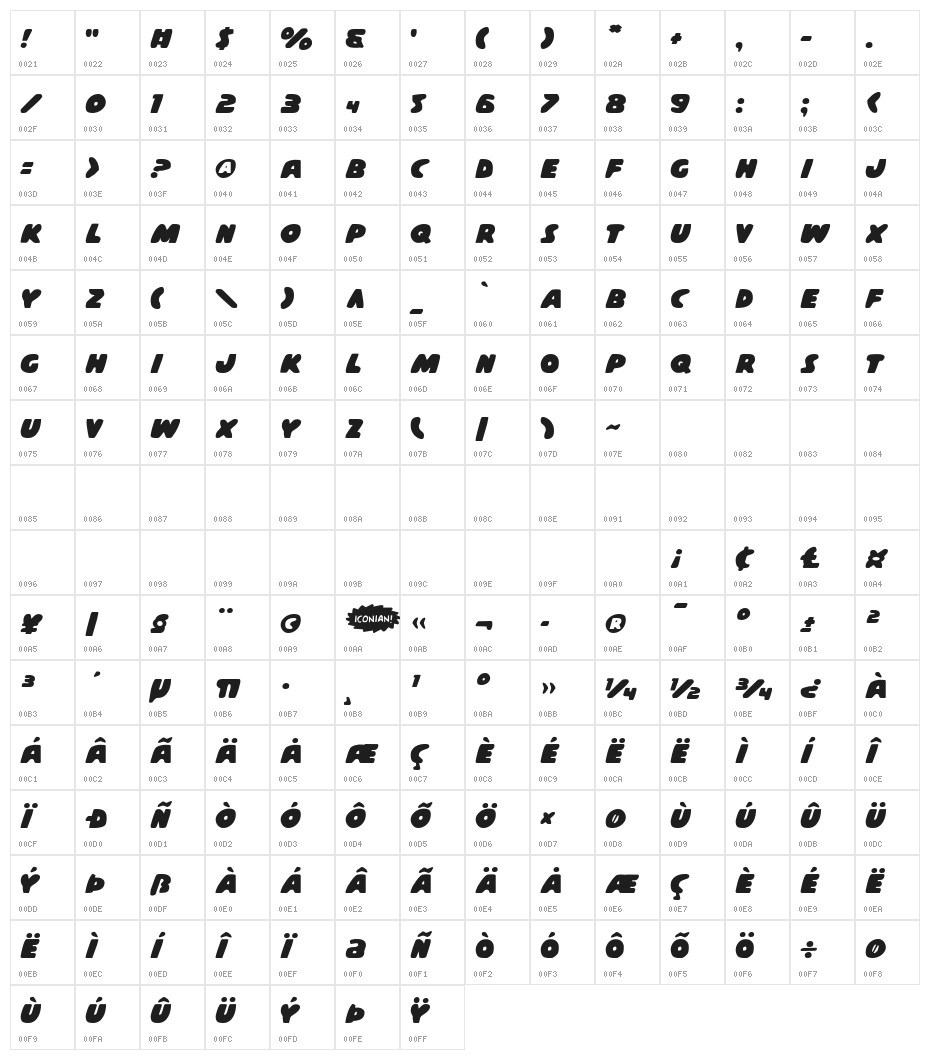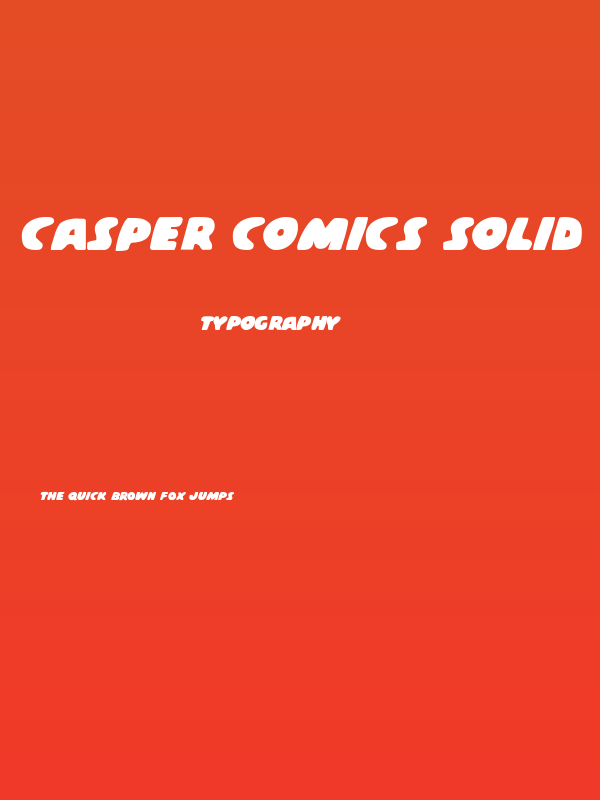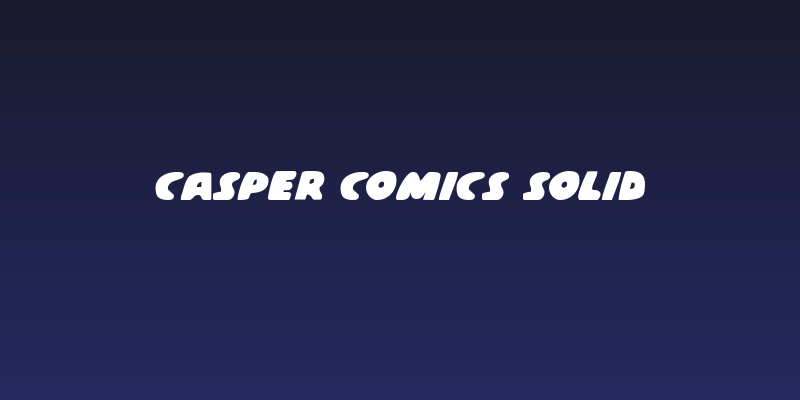
Casper Comics Solid Font
Casper Comics Solid Description
This font features bold, rounded characters with a playful and cartoonish style. The letters are thick and have a slightly slanted appearance, giving them a dynamic and energetic feel. The strokes are consistent in weight, providing a uniform look across all characters. The numbers and special characters maintain the same playful aesthetic, making the font suitable for informal and fun designs. The overall appearance is friendly and approachable, ideal for projects that require a touch of whimsy.
| Overall Style | Playful, Cartoonish |
| Proposed Projects | Ideal for comic books, children's books, playful branding, and posters. |